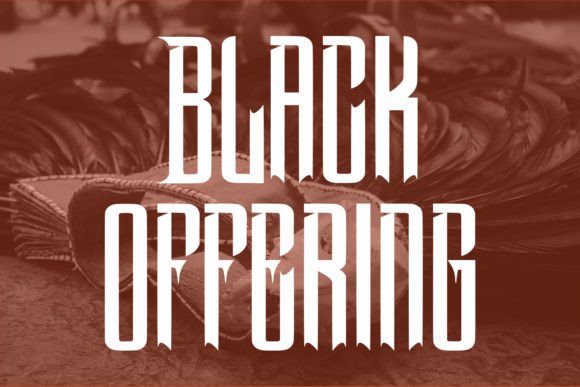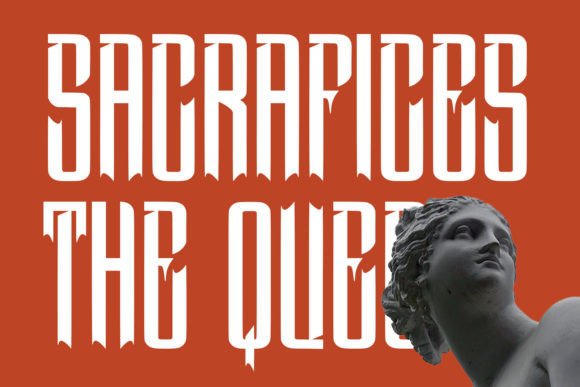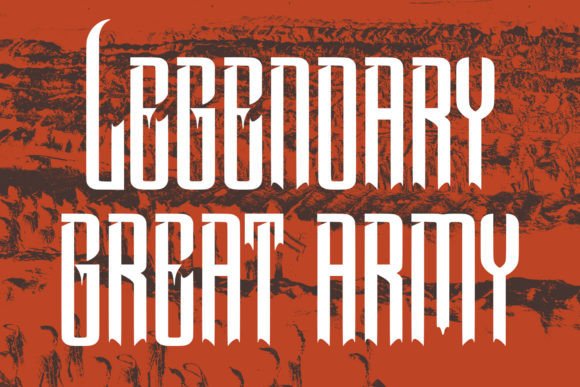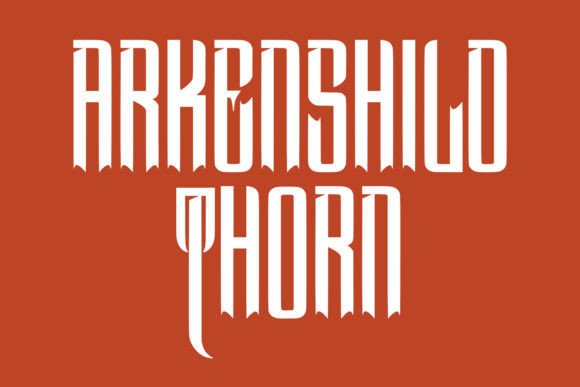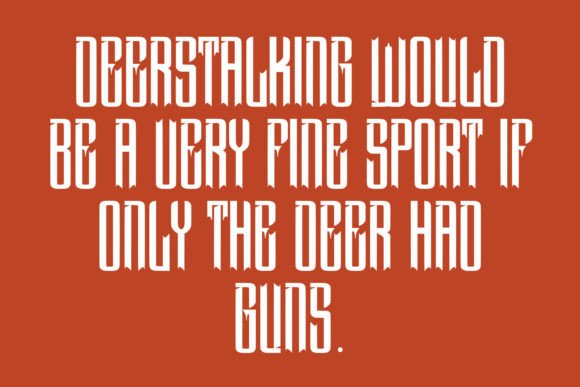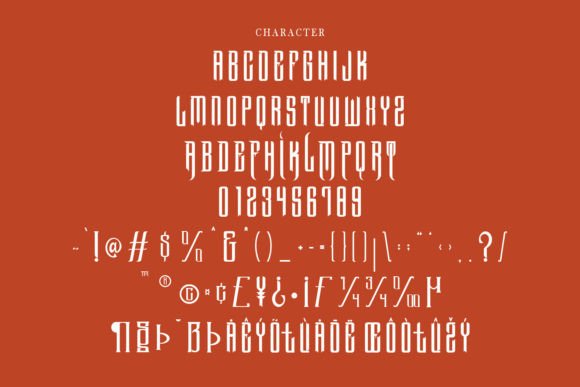
The Creepy Charm of Equerill Font: A Designer’s Delight
I still remember the night I was working on a haunted house poster project, struggling to find the perfect font to convey the eerie atmosphere. My client wanted something that would send shivers down the spines of potential visitors, but I was stuck in a design rut. That’s when I stumbled upon the Equerill font, and it was love at first sight! ✨
This spooky and dramatic font looks like old-fashioned writing from a horror story, making it perfect for creating creepy and mysterious designs, such as haunted house posters or Halloween invitations.
An Honest Review of Equerill Font
What I Love About Equerill Font
- 💀 **Spooky and dramatic**: Equerill font has a unique, eerie feel that adds a touch of horror to any design.
- ✨ **Highly legible**: Despite its ornate appearance, the font is surprisingly easy to read, making it perfect for body text.
- ✅ **Versatile**: Equerill font can be used for a wide range of design projects, from posters and invitations to logos and branding.
- 🎃 **Themed**: The font’s Halloween-inspired design makes it a great choice for seasonal projects.
While Equerill font is a great addition to any design project, there are a few quirks to keep in mind: 🤔
- ⚠️ **Limited use outside of horror or Halloween themes**: While the font can be used for other projects, its spooky design may not be suitable for more serious or professional designs.
- ⚠️ **May not be suitable for small text sizes**: Due to its ornate design, Equerill font may not be the best choice for very small text sizes.
Equerill font was inspired by the classic horror movies of the 1920s and 1930s. Its designer wanted to create a font that would evoke the spooky and mysterious atmosphere of old-fashioned horror stories. The result is a font that is both creepy and elegant, perfect for adding a touch of horror to any design project.
Q: What type of designs is Equerill font best suited for?
A: Equerill font is best suited for designs that require a spooky and mysterious atmosphere, such as haunted house posters, Halloween invitations, and horror-themed logos.
Q: Is Equerill font easy to read?
A: Despite its ornate appearance, Equerill font is surprisingly easy to read, making it perfect for body text.